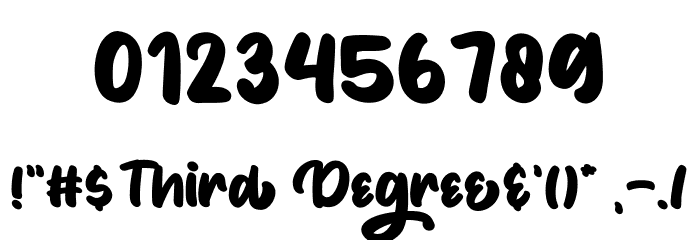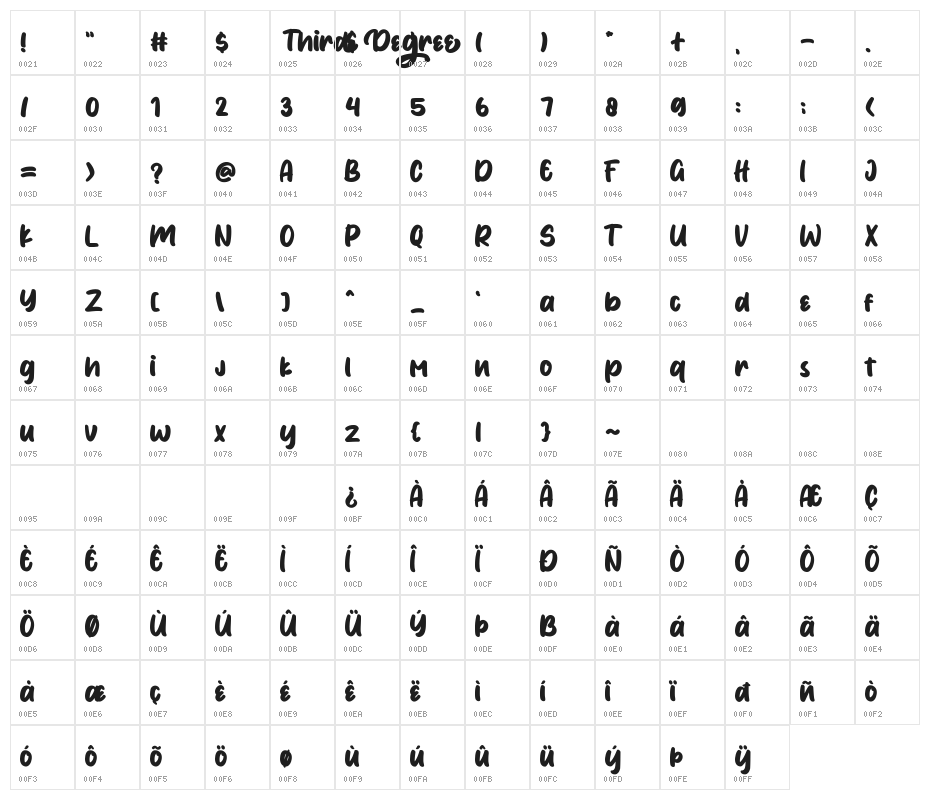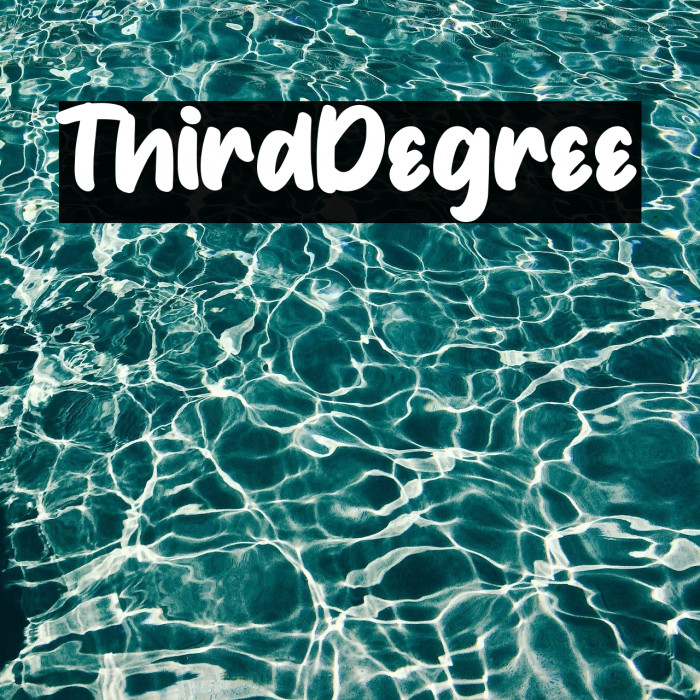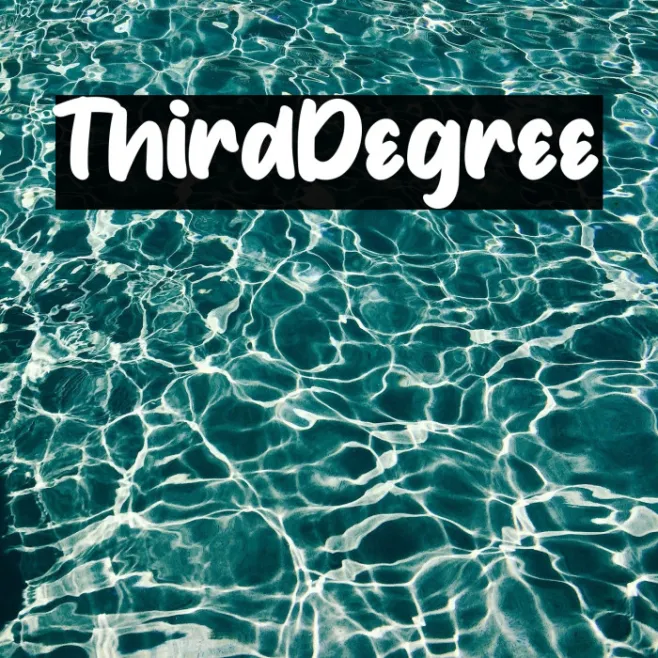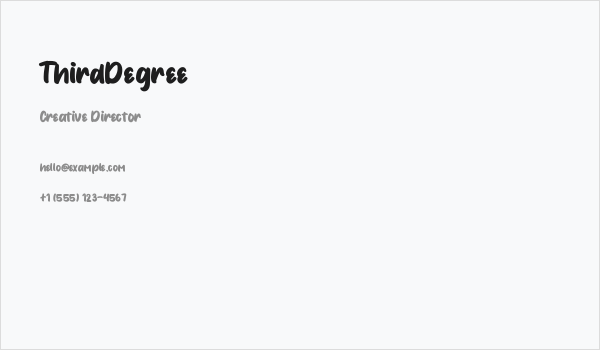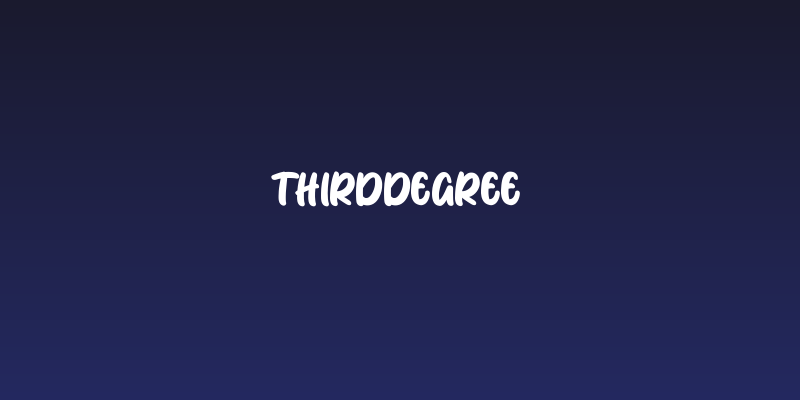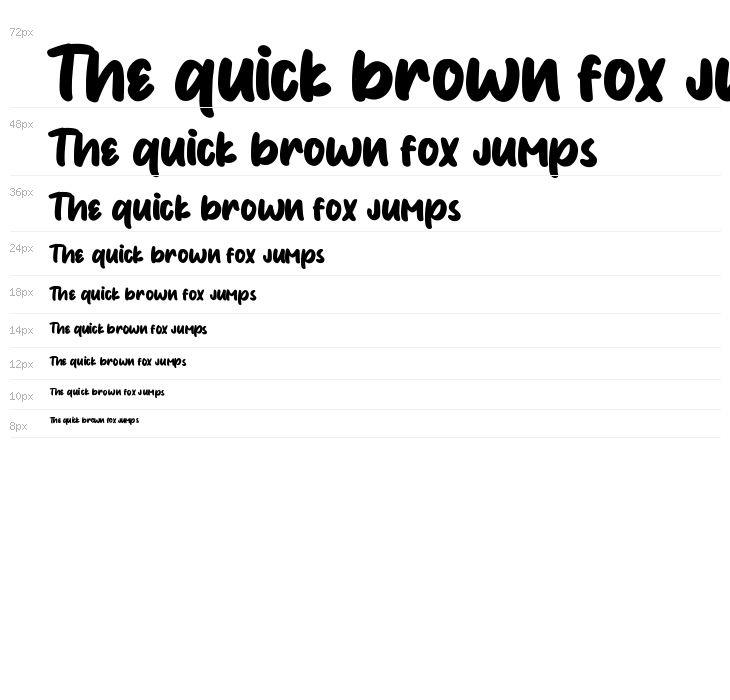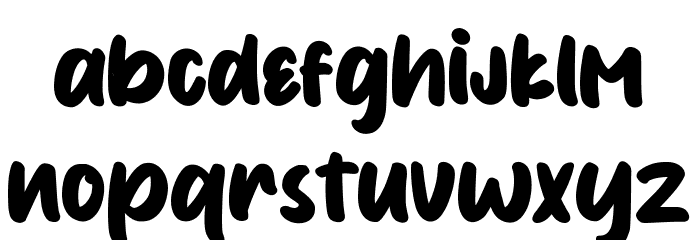
ThirdDegree Font
ThirdDegree Description
This font features a bold and playful handwritten style, characterized by its thick strokes and rounded edges. The letters are slightly slanted, giving it a dynamic and energetic feel. The uppercase and lowercase letters maintain a consistent flow, with a casual and friendly appearance. Numbers and special characters are equally bold, ensuring uniformity across all glyphs. The font's informal style makes it suitable for projects that require a personal touch or a fun, approachable aesthetic.